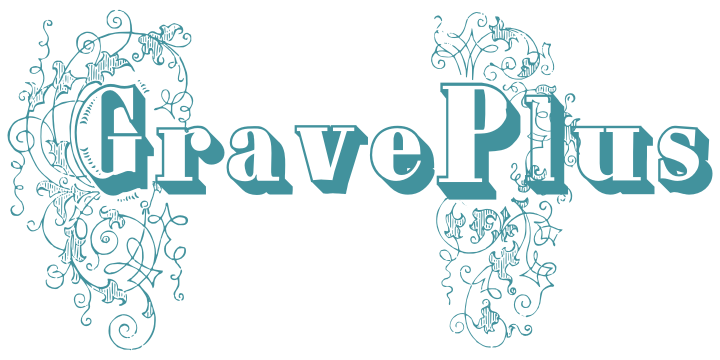
Grave Plus Complete (1 font)
From Intellecta Design
Its family of fonts has too Grave Ornaments, a dingbat/decorative display font featuring many different styles of flourishes and ornaments, great for a vintage antique feel.
Completes the collection Grave Plus, where six different fonts has different styles of victorian fleurons and ornaments merging with a bodonian shaded typeface in great style.